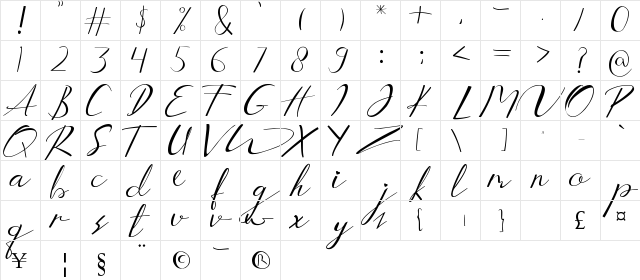
Aucklands Script Regular
Design Context for Aucklands Script Typeface
Aucklands Script brings a calligraphic fluidity to the page — its connecting strokes and expressive curves give it an unmistakably human quality.
Font Pairing: Combine Aucklands Script with a simple geometric sans for maximum contrast — the tension between flowing curves and clean structure is a classic typographic pairing.
Pro Tip: Pair Aucklands Script with a clean sans-serif for supporting text. The contrast between fluid script and geometric structure creates an elegant typographic hierarchy.